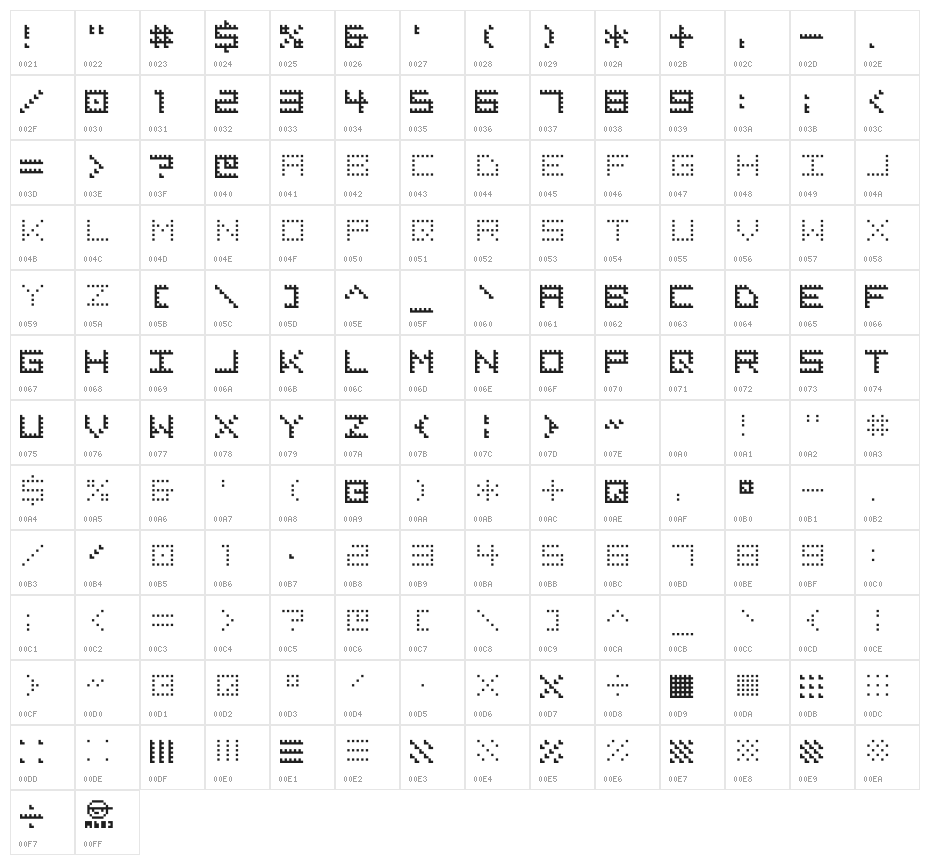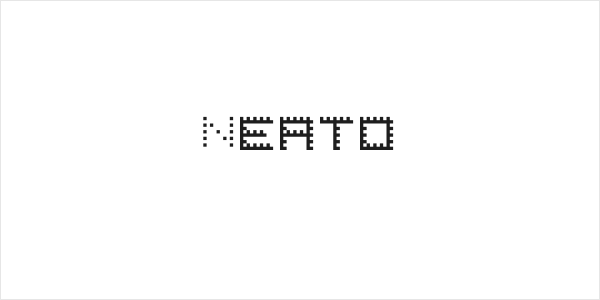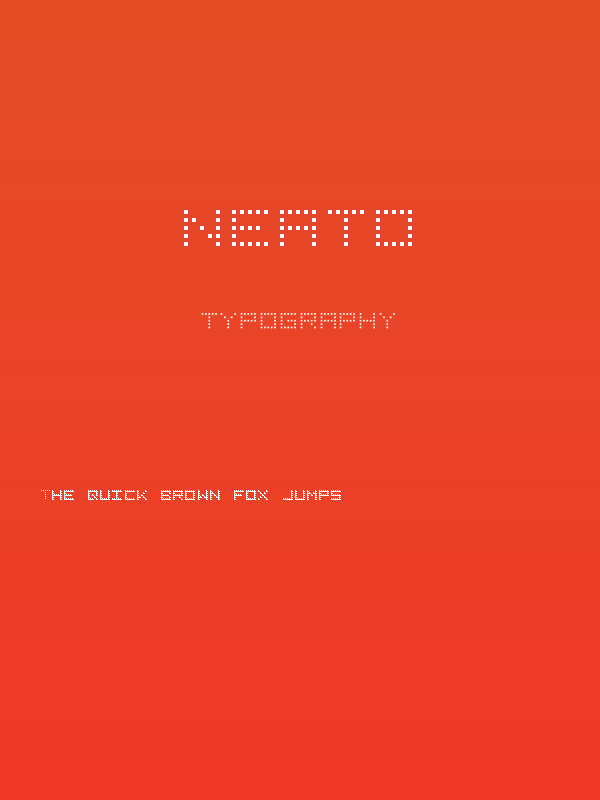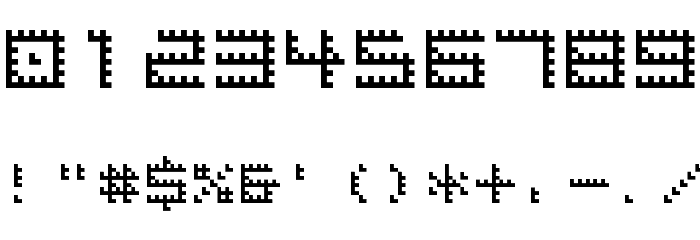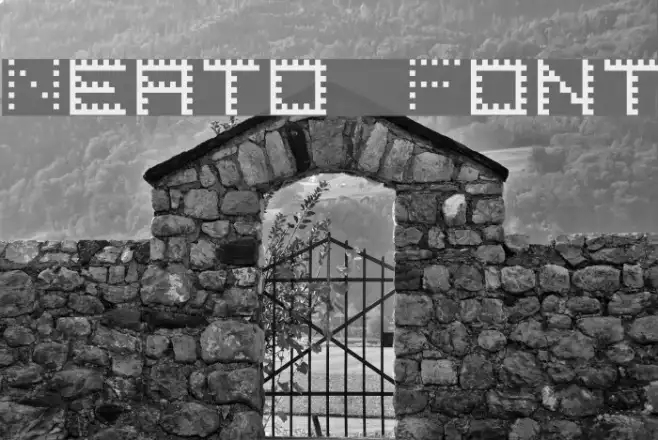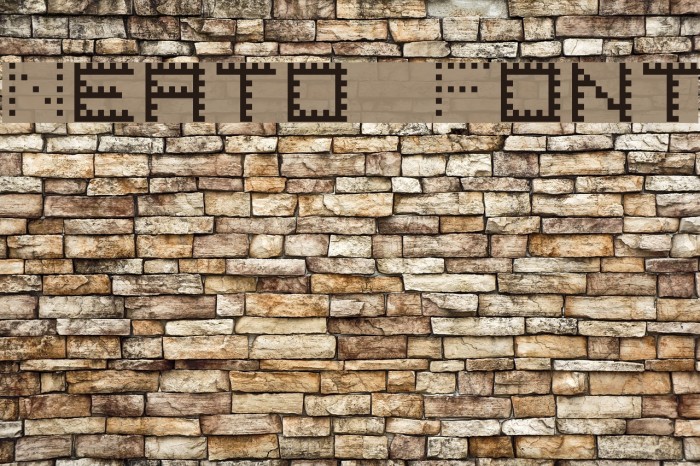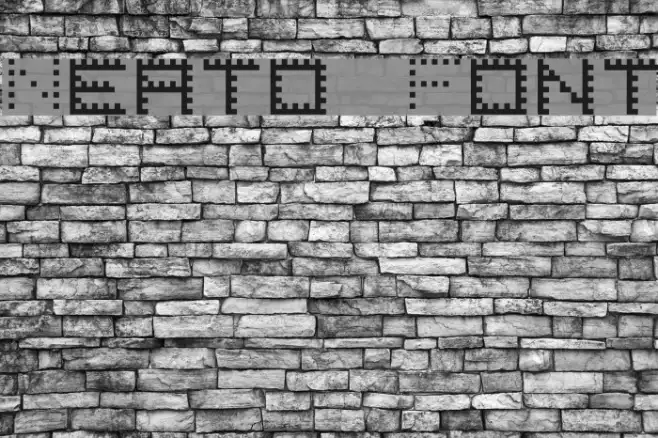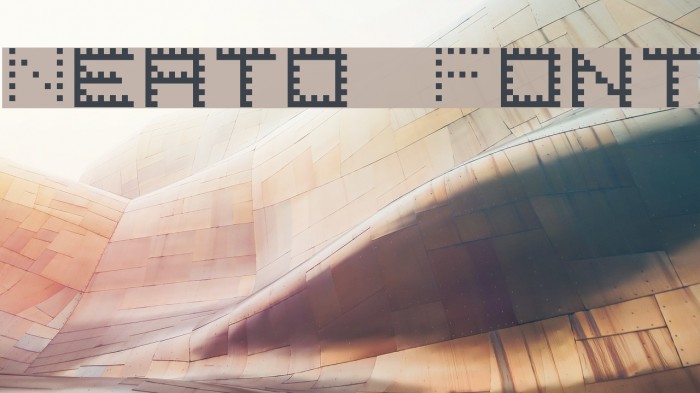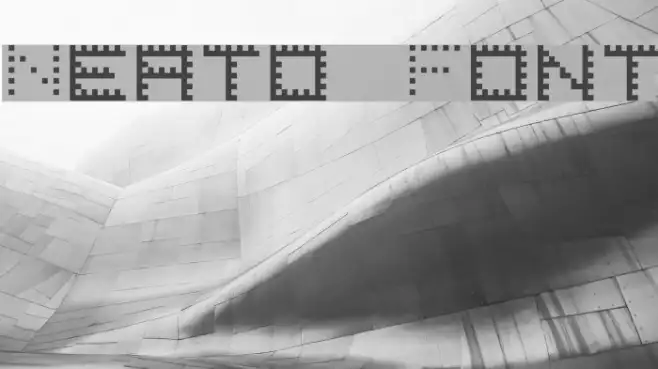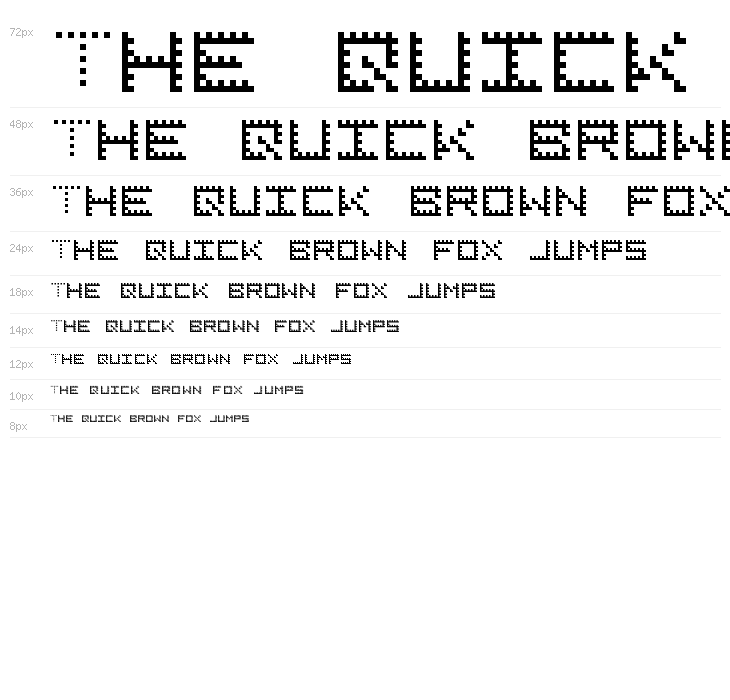
Neato Font
Neato Description
This font features a unique pixelated design, reminiscent of early digital displays and retro video games. Each character is constructed from a grid of small squares, giving it a distinct, blocky appearance. The uppercase and lowercase letters maintain a consistent height, while the numbers and special characters follow the same pixelated style. This design choice creates a cohesive and nostalgic aesthetic, perfect for projects aiming to evoke a sense of vintage digital technology. The font's uniformity and geometric precision make it stand out, offering a playful yet structured look.
| Proposed Projects | Ideal for retro-themed designs, video game graphics, digital art projects, and tech-related branding. |